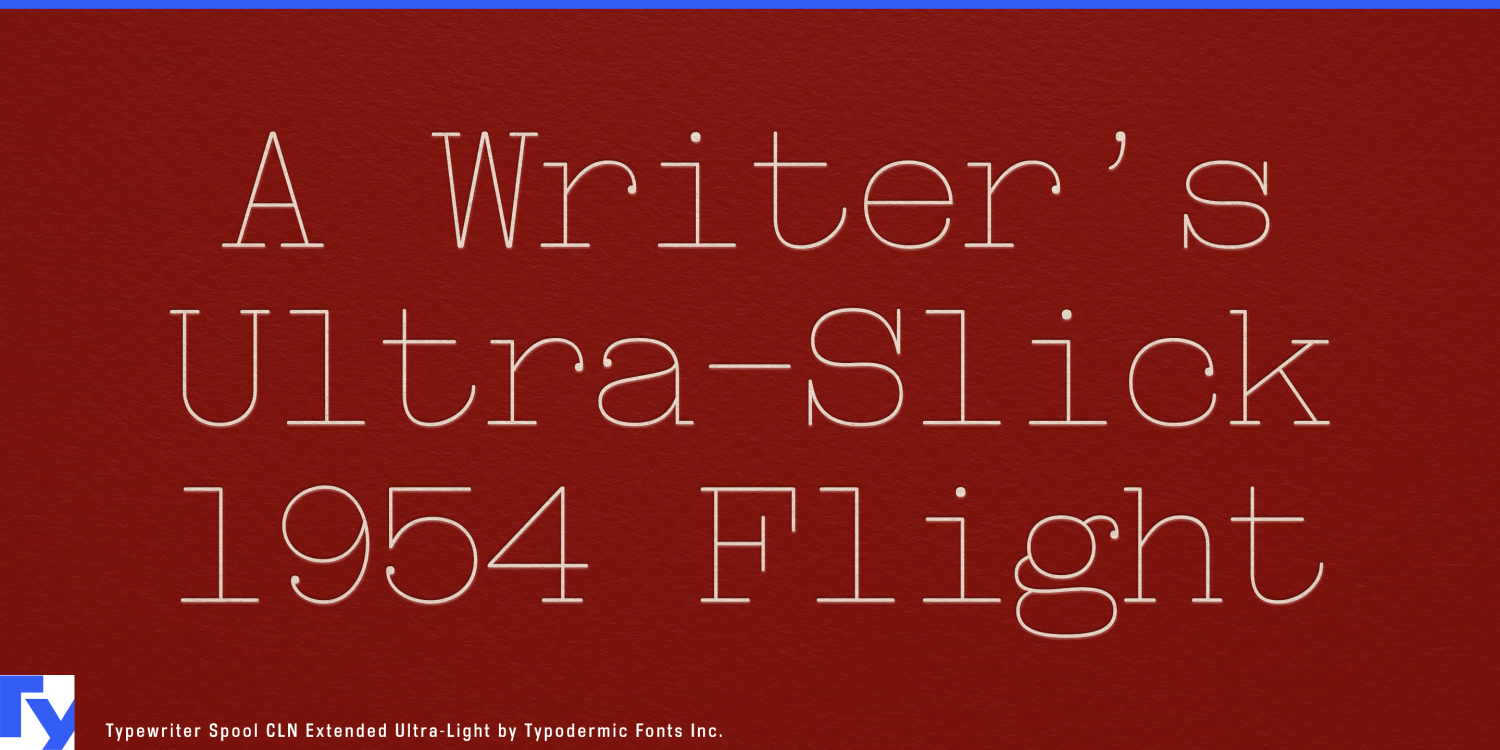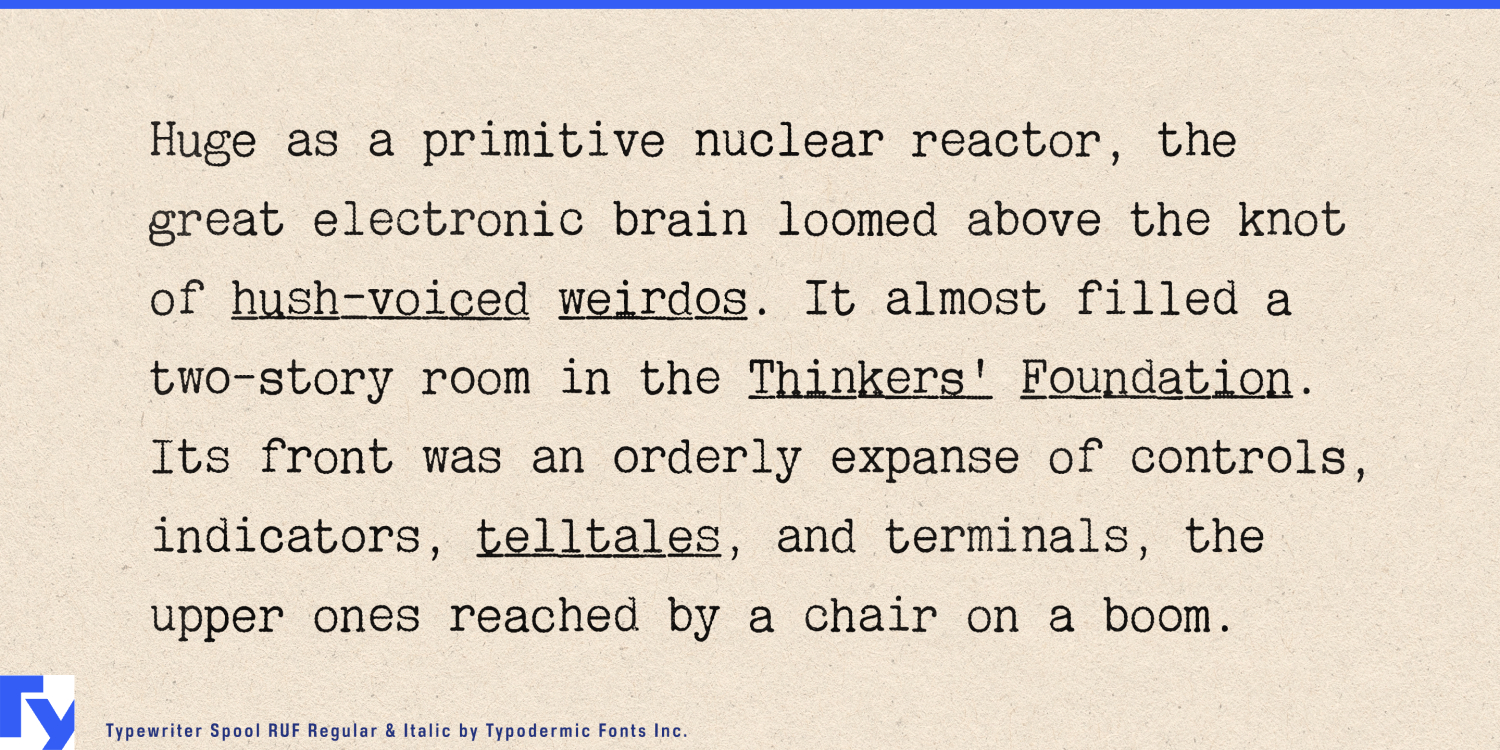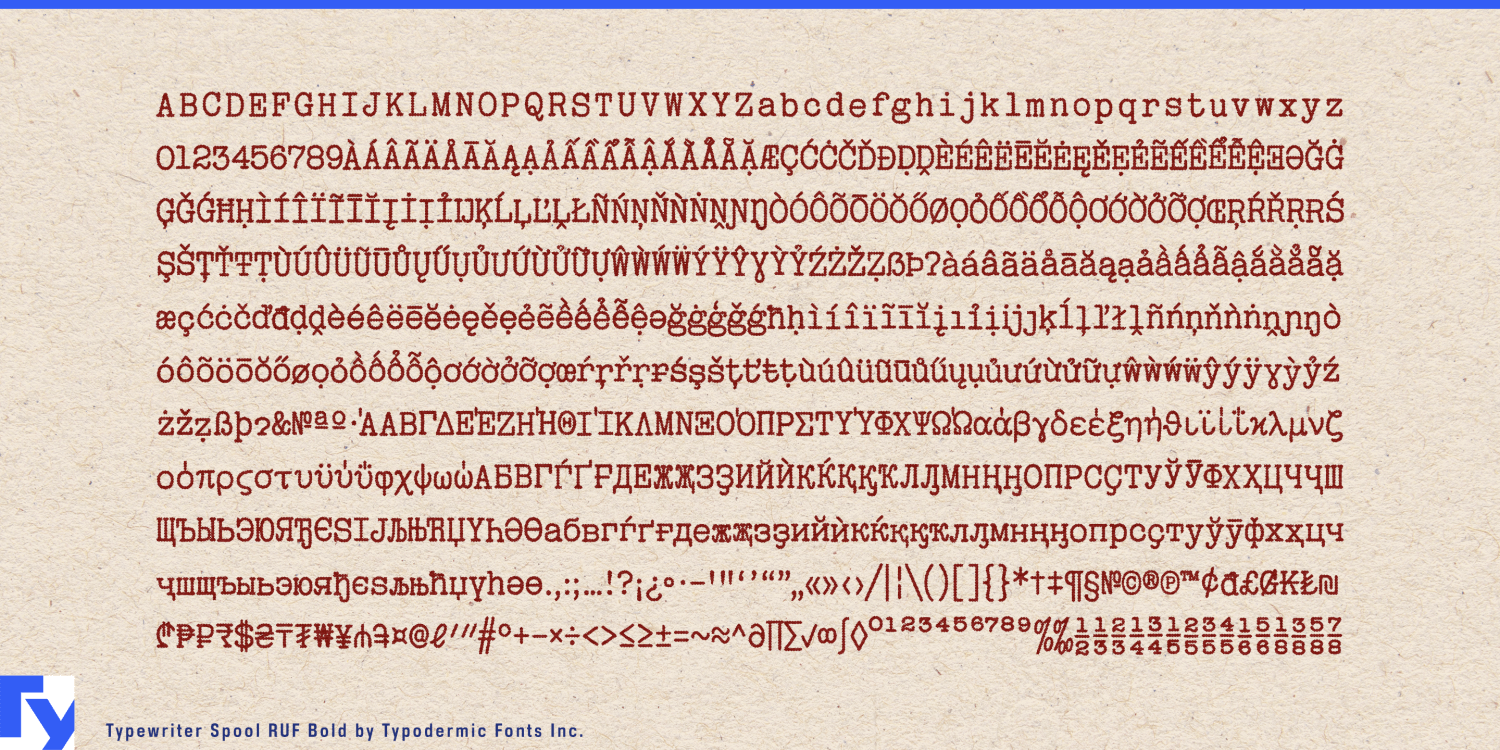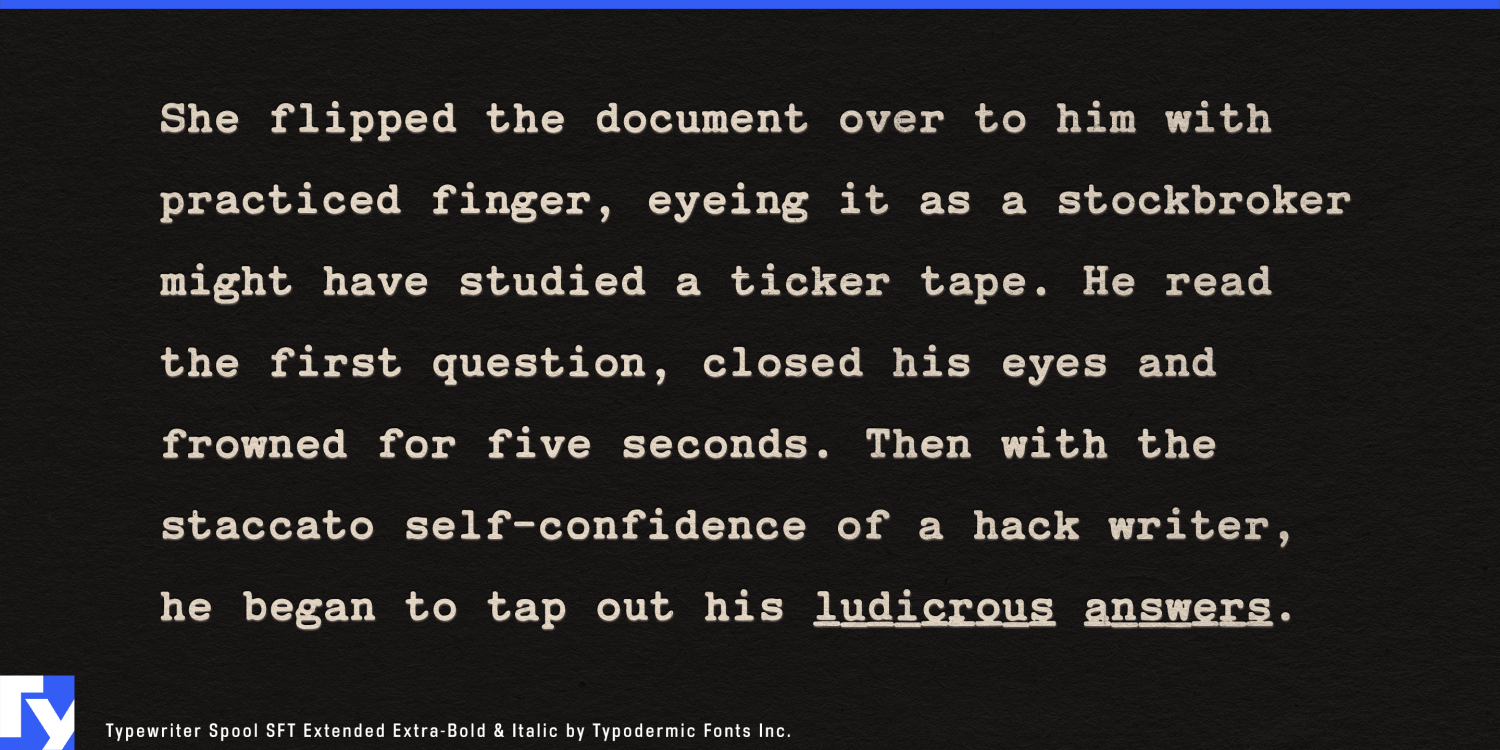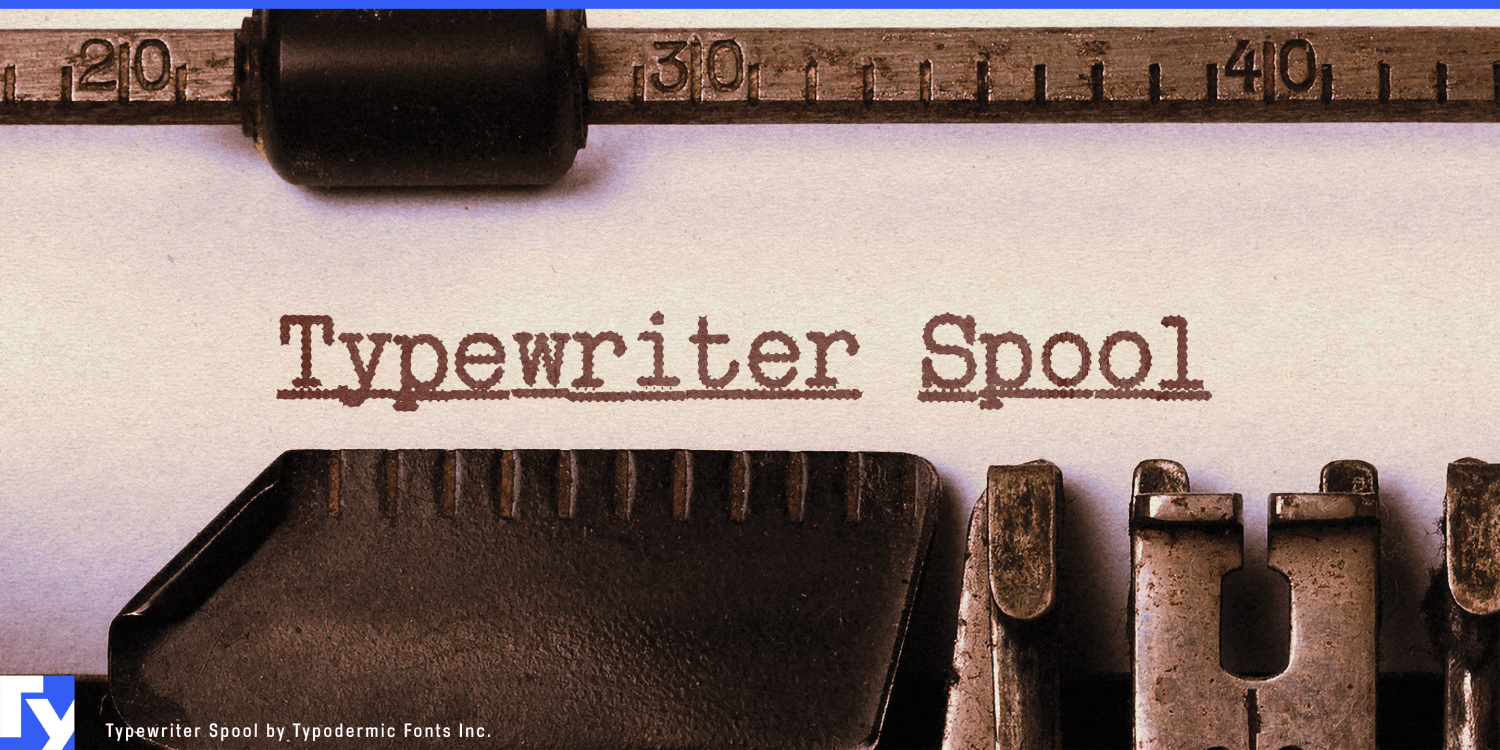
About Typewriter Spool
Typewriter Spool: a font collection that awakens the senses with the nostalgic allure of vintage typewriters. Like the intoxicating aroma of fresh ink on crisp paper, this typeface family infuses your designs with the unmistakable essence of literary…